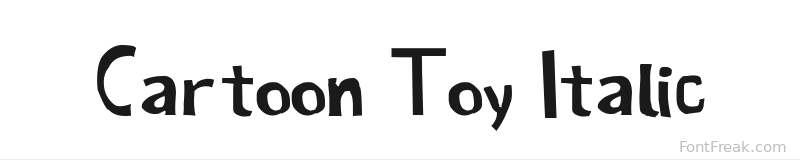
Cartoon Toy Italic
Cartoon Toy Italic is a delightful display typeface designed by Galdino Otten in 2013, perfect for those seeking a playful and whimsical touch in their designs. As an italic font, it offers a sense of motion and liveliness, making it an excellent choice for a wide range of creative projects. This font is characterized by its medium stroke weight, which provides a balanced look while maintaining clarity. The rounded edges and slightly uneven strokes contribute to its handcrafted, toy-like appearance, making it visually engaging and approachable. The spacing between letters is generous, ensuring readability even in larger compositions.
The best use cases for Cartoon Toy Italic are numerous. It shines in children's book covers, where its playful aesthetic can capture the imagination of young readers. Additionally, it's a fantastic choice for birthday party invitations, bringing a sense of fun and excitement to any celebration. This font also works well for promotional materials for toy stores or family-friendly events, where a light-hearted tone is essential. Graphic designers can utilize it in creating vibrant posters for animated films or children’s theater productions, effectively conveying the theme of fun and adventure.
Target audiences for Cartoon Toy Italic include graphic designers, small business owners, and content creators who are looking to add a unique flair to their projects. This font is especially appealing to those in the children’s entertainment and educational sectors, as it aligns perfectly with their target demographic.
What sets the Cartoon Toy Italic font apart is its ability to evoke joy and nostalgia while maintaining a modern aesthetic. Its freeware license allows for widespread use, making it accessible for anyone looking to infuse their designs with a sense of whimsy. For those interested, the Cartoon Toy Italic font free download is a fantastic opportunity to enhance your creative toolkit.